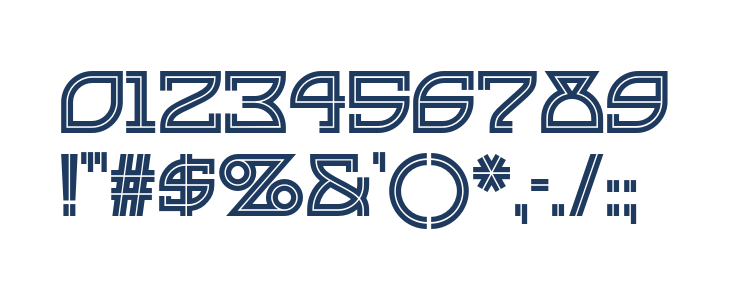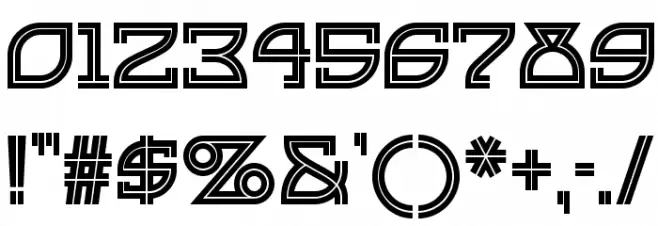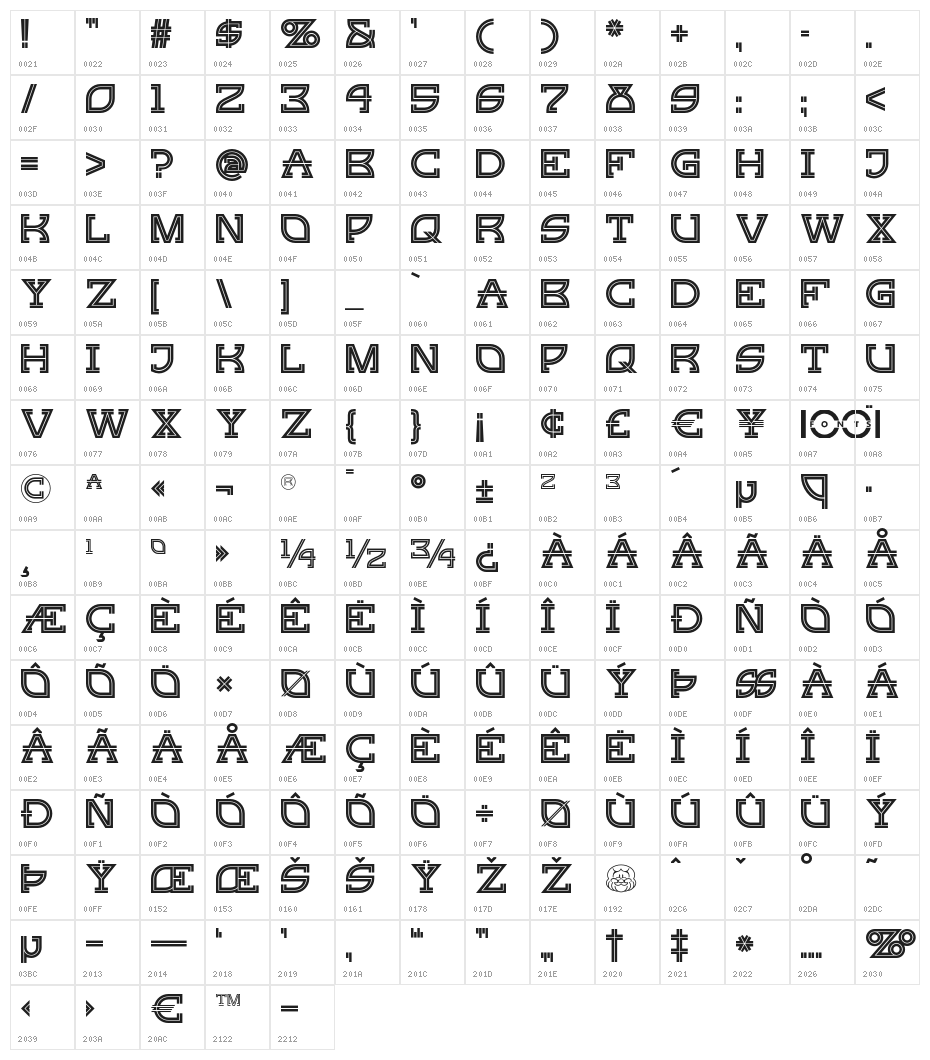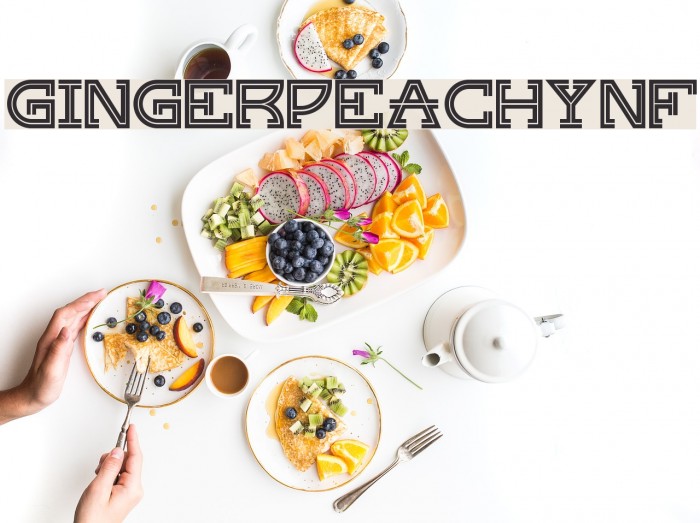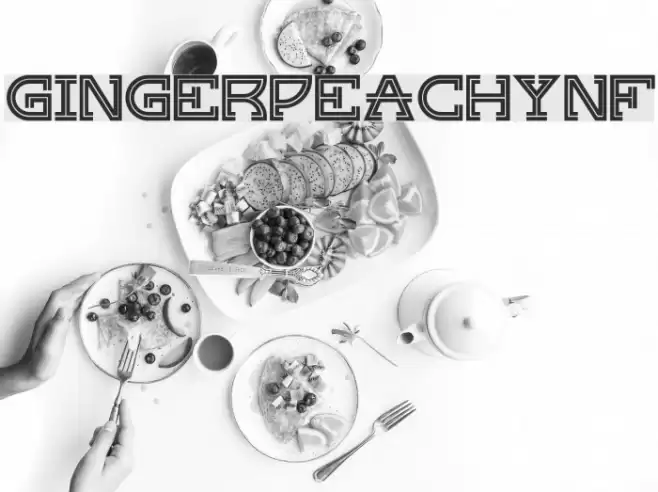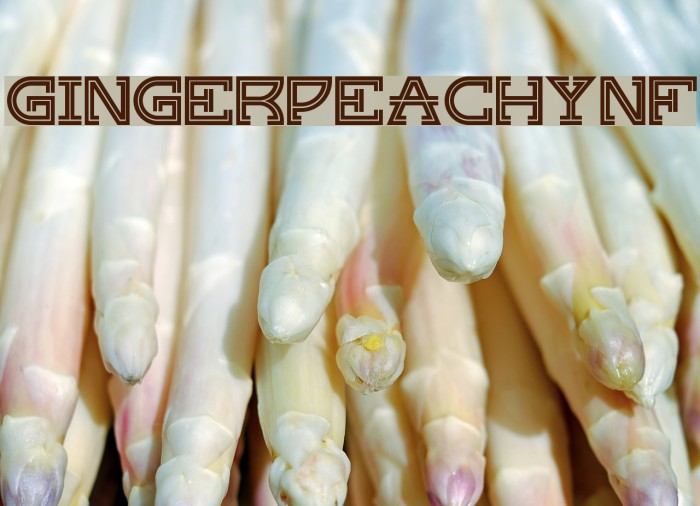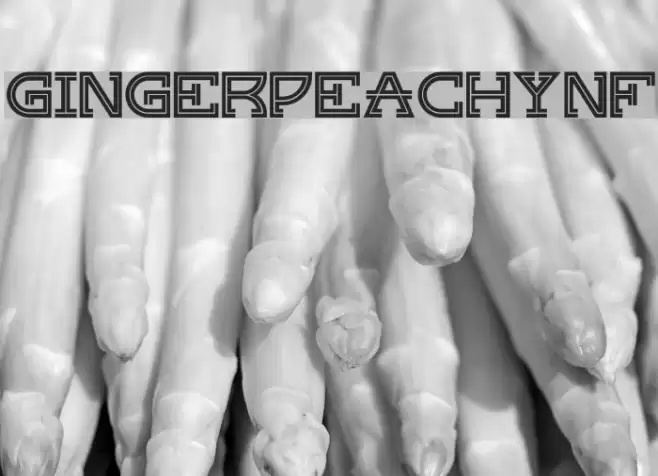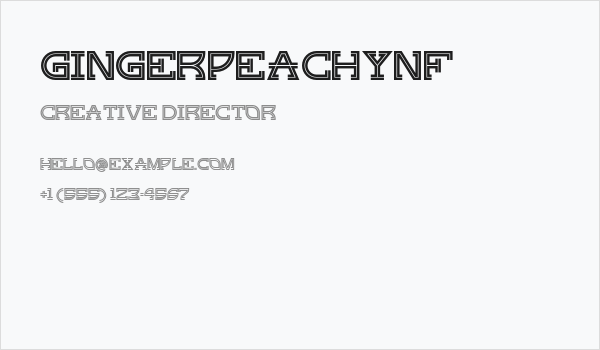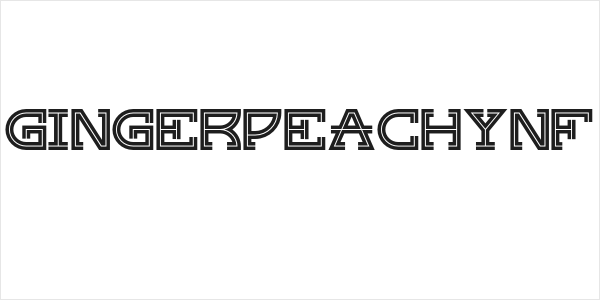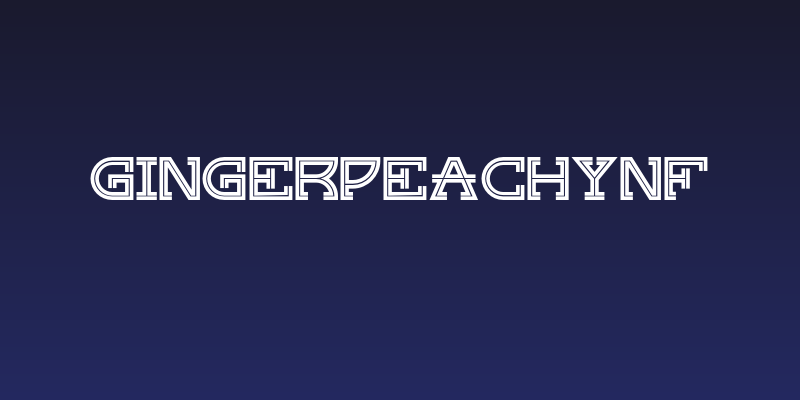
GingerPeachyNF Font
GingerPeachyNF Description
This font features a bold, geometric design with a double-line structure that creates a striking visual effect. The characters are constructed with a strong emphasis on symmetry and angular shapes, giving it a futuristic and industrial feel. The uppercase and lowercase letters maintain a consistent style, with sharp edges and a sense of uniformity. Numbers and special characters are crafted with the same attention to detail, ensuring a cohesive look across all glyphs. The font's unique style makes it stand out, suitable for projects that require a modern and edgy aesthetic.
| Proposed Projects | Ideal for branding, posters, album covers, and any design needing a modern, industrial touch. |